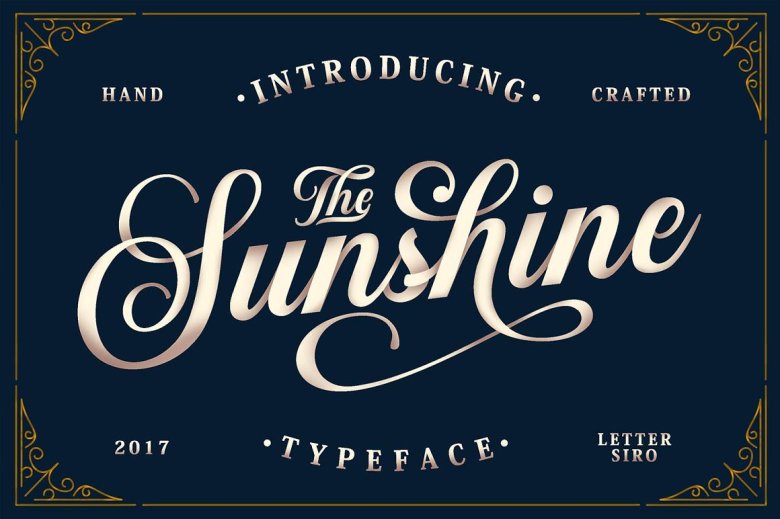
Sunshine Script Font
Thank you for trying this font. I try to present a font with an interesting touch. It comes in a classic form with a modern script. Introducing Sunshine Font! It is designed and shared by Lettersiro. This is very suitable for beautiful logo, poster, vintage signage, magazine, photography, vintage lettering, and any other design project.